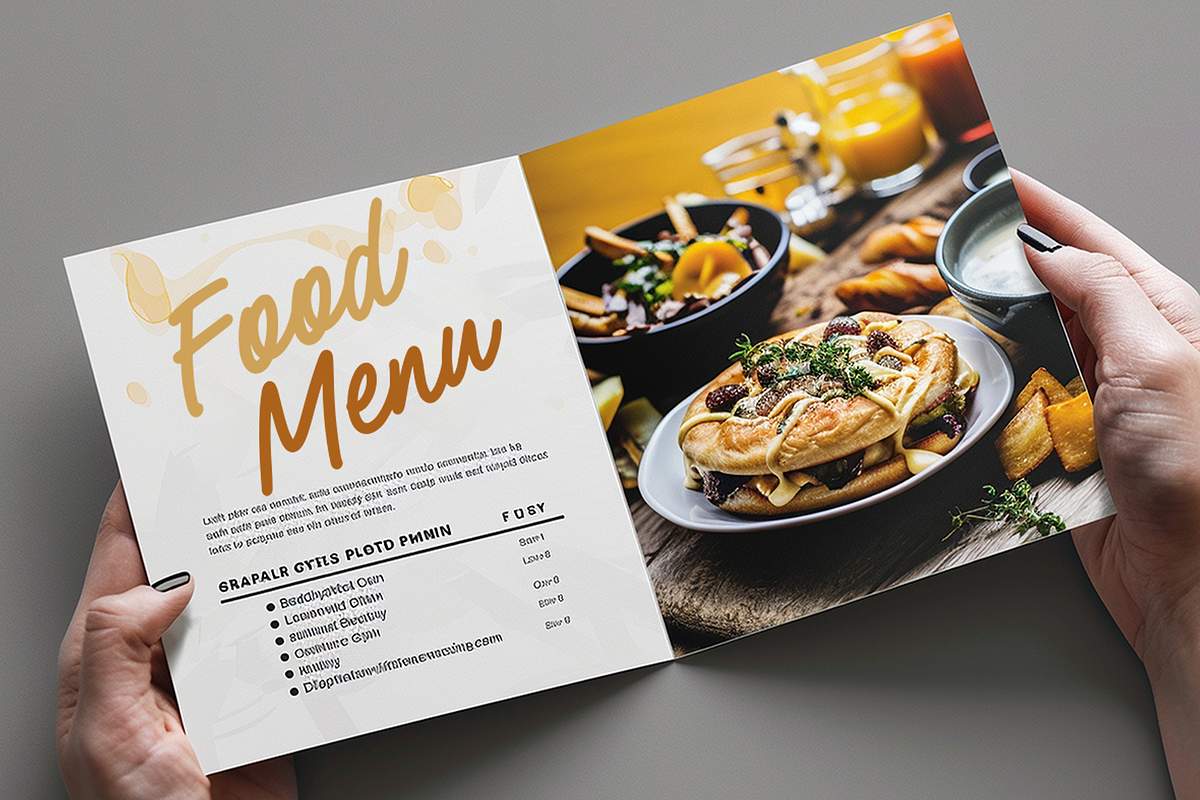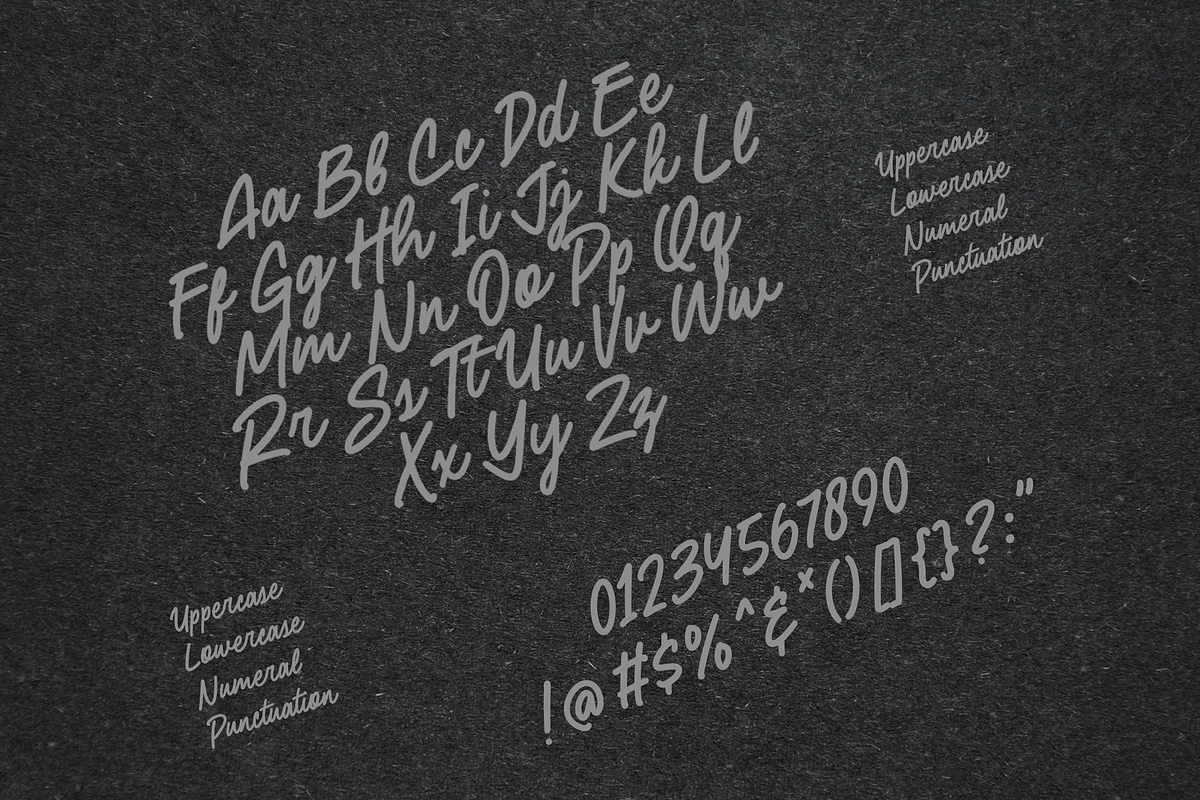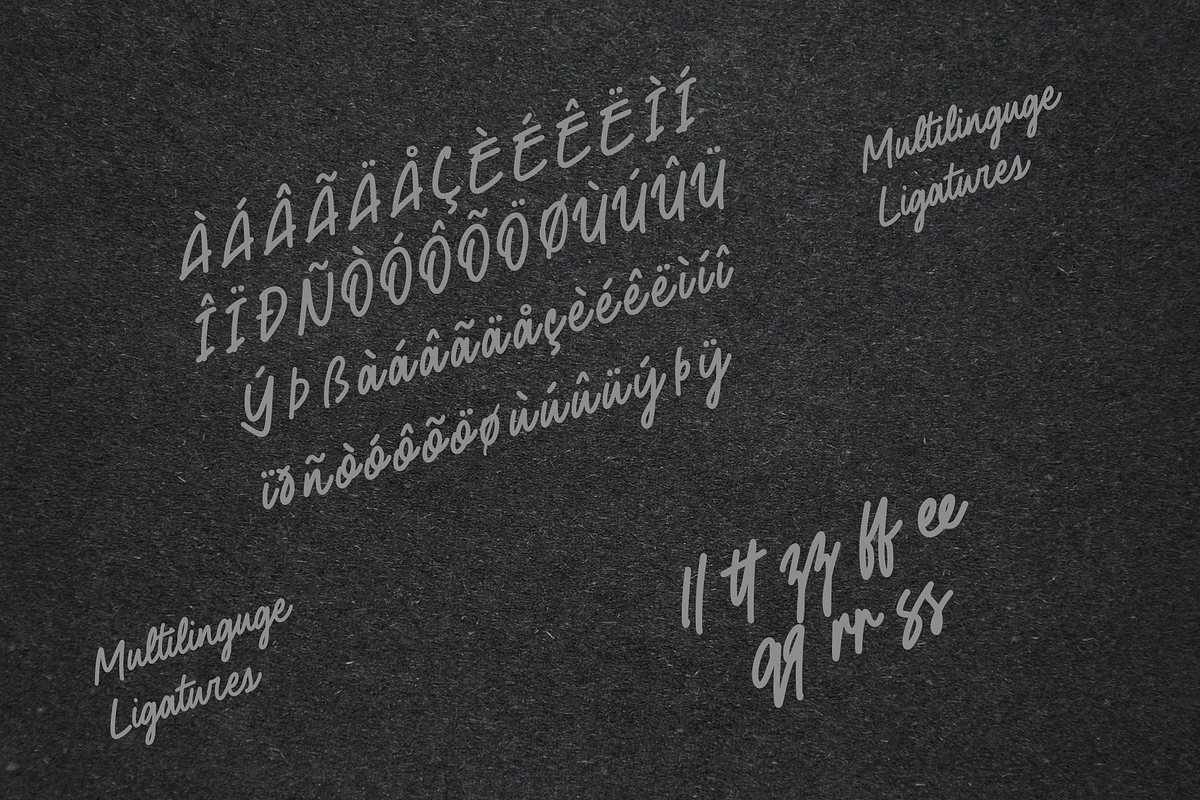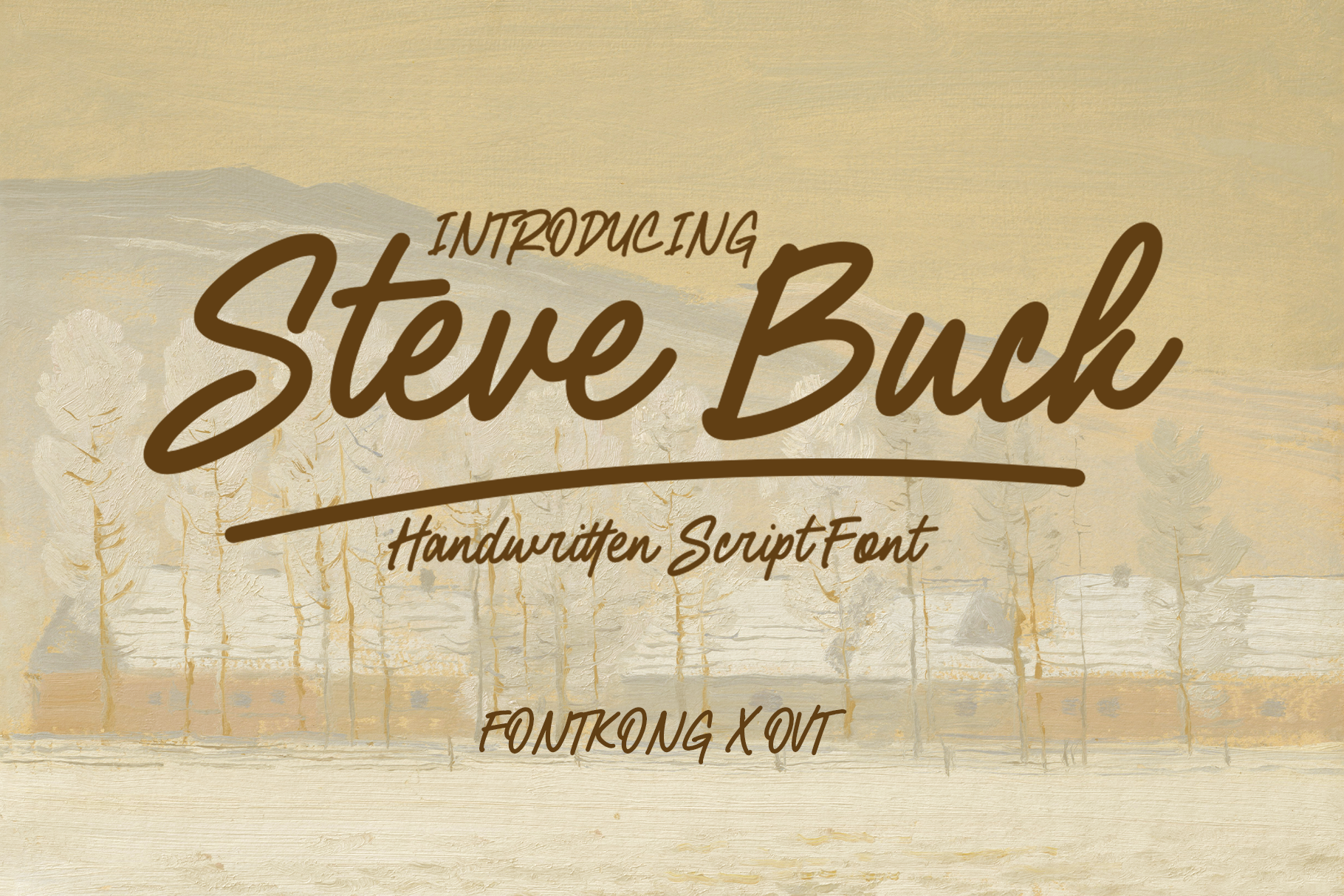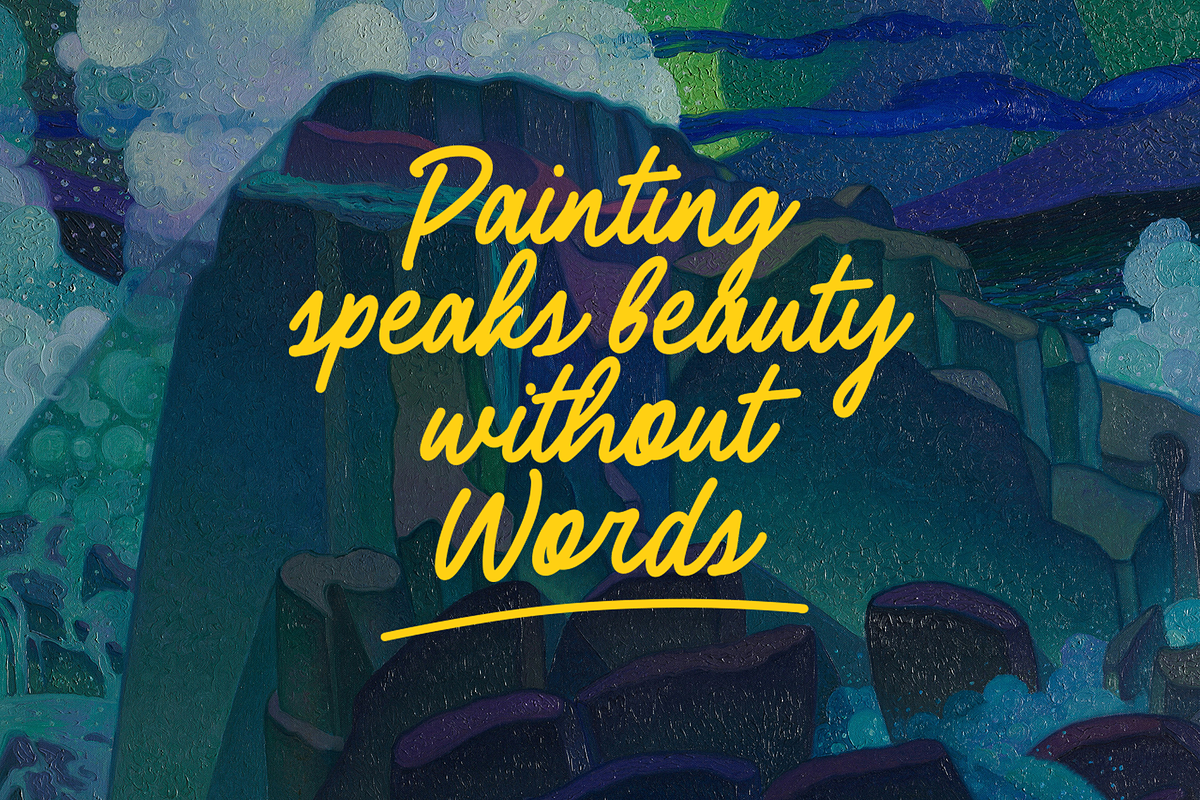
Steve Buck – Handwritten Script Font
Steve Buck – A Handwritten Script Font
Steve Buck is a refined handwritten script font that captures the beauty of natural penmanship with a modern touch. Its fluid strokes and delicate curves make it ideal for various design projects, including logos, invitations, greeting cards, and social media posts. This font adds a personal, artistic vibe that elevates branding efforts and enhances the emotional appeal of your content.
The organic flow of Steve Buck ensures that every letter feels authentic and expressive, making it perfect for projects that require a handwritten or calligraphic touch. Whether you’re crafting stylish wedding invitations, product labels, or digital graphics, Steve Buck offers elegance and versatility to fit any occasion.
Bring your ideas to life with Steve Buck a handwritten font that transforms ordinary designs into heartfelt, creative works of art.